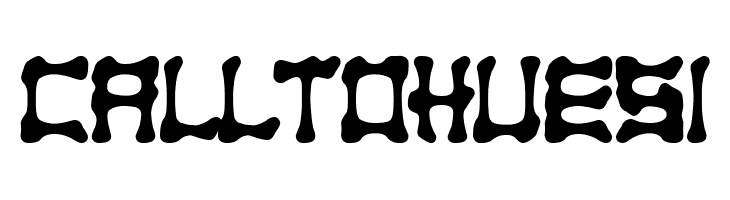
• Call to Huesi フォント
A bold, organic font with irregular, fluid strokes and a playful, artistic style.
• Ghetto bros フォント
A bold, graffiti-inspired font with a playful, urban aesthetic and dripping patterns.
• La Nueva Vieja Escuela フォント
A bold, dripping font with a unique, edgy style.
• Bloody Office フォント
A bold, dripping font with a spooky, horror-themed design.
• Potorro Angular フォント
A bold, angular font with a futuristic and geometric design.
• Pantano Gipsy フォント
A bold, distressed font with a rugged, grunge-like appearance.
• Bad Things フォント
A bold, dripping graffiti-style font with a rebellious edge.
• Hood Army Stencil フォント
A bold, distressed stencil font with a rugged, military-inspired look.
• Miss Order フォント
A bold, industrial stencil-style font with high contrast and geometric forms.
• Stamp Empire フォント
A bold, distressed font with a rugged, vintage appearance.